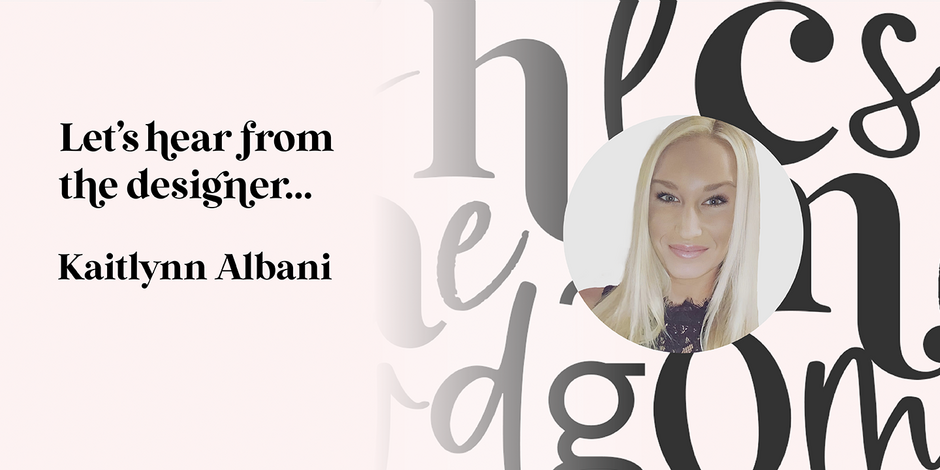
#21 Wild Mango by KA Designs
Q1: What should graphic communicators look for when choosing a typeface family for a specific project? What kind of typeface designs are best for pairing with your typeface?
Ans: When choosing a typeface for a specific project, there are a lot of factors that should be considered. Some of the most important being the mood, functionality, read-ability and performance of the typeface. The typeface will need to match the project‘s goal and appeal to the specific audience.
Wild Mango includes a variety of curvy glyphs. When choosing a font to pair with it, this should be considered. A simple sans serif or a handwritten script font would look best with Wild Mango. If you are choosing a script font, I would look for something that is more modern in letterforms, rather than a classical script typeface.
Q2: What were your goals when designing the typeface? What is the one or two most important things graphic communicators should know about the typeface, or how will the family of fonts help them create better design?
Ans: My goal when designing Wild Mango was to create a font that was modern but still exhibited the characteristics of a traditional serif font. I think that this was a style that a lot of designers were looking for without even realizing it at the time!
One of the most important things about this font would be that it is quite versatile. The letters look clear and crisp at both small and large sizes. This makes Wild Mango the perfect choice for various projects. This is a wonderful font to have in your creative toolbox and I think that you would find yourself using it often!